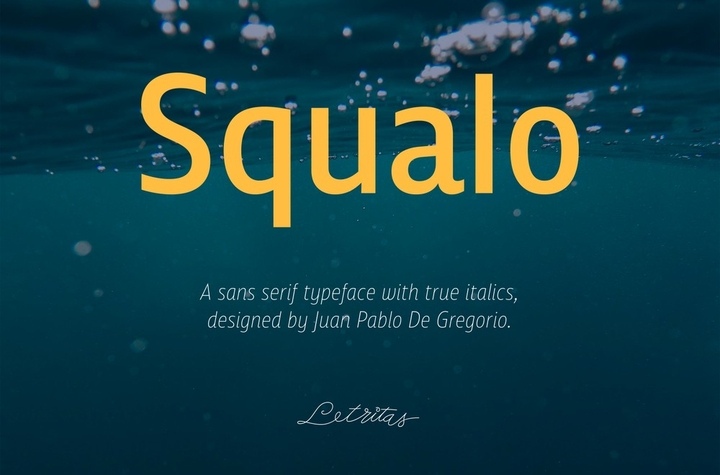
Squalo Font
Squalo Font is perfect for marine research branding, aquarium signage, seafood restaurant menus, ocean conservation campaigns, diving equipment packaging, maritime adventure marketing, shark week graphics, and aquatic-themed entertainment.
What makes Squalo Font exciting is its predatory elegance that captures the sleek power and mysterious allure of ocean predators. The font features sharp letterforms with streamlined edges and dynamic angles that evoke the graceful ferocity of sharks cutting through deep waters. Its distinctive character structure and marine-inspired styling communicate strength, precision, and aquatic mastery, making every message feel charged with oceanic energy and the primal power of apex marine predators.
The Squalo Font family includes regular weight with uppercase and lowercase letters, numerals, punctuation marks, and special characters. Premium versions often feature sharp alternates and aquatic-inspired decorative elements that enhance the predatory, marine aesthetic perfect for ocean-themed applications.
This striking marine typeface brings instant power and oceanic authenticity to any water-related project. Squalo Font Free Download offers exceptional value for businesses and organizations in marine industries seeking to communicate strength, precision, and deep-sea expertise to ocean enthusiasts and marine professionals.
The predatory character of Squalo Font makes it particularly effective for marine biology institutions, commercial fishing operations, and underwater adventure companies. Its excellent visibility ensures safety information and marine messaging capture attention while maintaining the distinctive aquatic aesthetic that appeals to audiences fascinated by ocean life and marine exploration.
Marine marketers and aquatic designers appreciate how Squalo Font effortlessly conveys oceanic power and marine authenticity. The font's streamlined proportions and sharp details create compelling brand materials that establish connections with audiences passionate about ocean conservation, marine research, and underwater adventure.
The versatile marine nature of this typeface extends to water sports equipment, aquarium education, and ocean documentary marketing where aquatic authenticity enhances credibility. Squalo Font Free Download provides creative professionals with a valuable tool for developing memorable, ocean-inspired designs that resonate with audiences who embrace marine life, ocean exploration, and the fascinating power of apex predators in their educational and recreational pursuits.